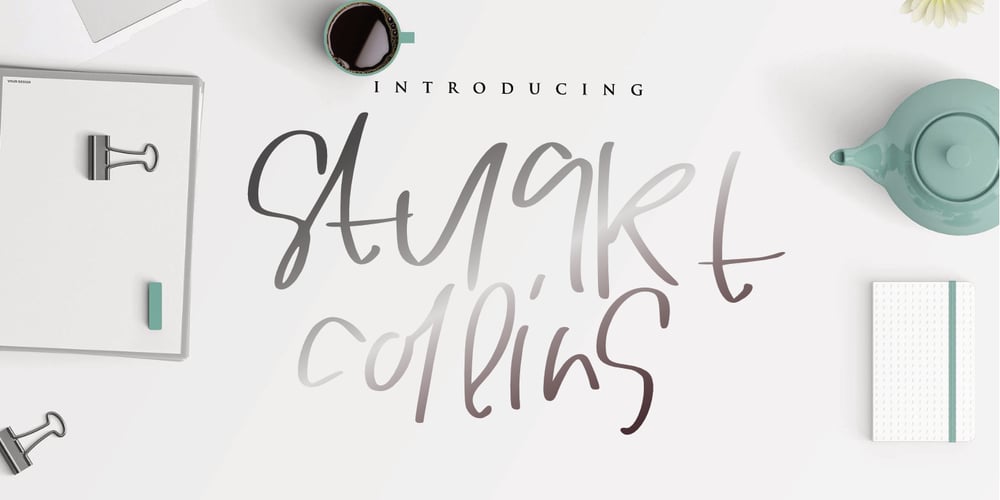
Stuart Collins Font Family was designed by Mariyana and published by Goodigital13. Stuart Collins contains 1 styles and family package options. It looks stunning on wedding invitations, thank you cards, quotes, greeting cards, logos, business cards and every other design which needs a handwritten touch.add an eye-catching appeal to your logo designs, brand imagery, handwritten quotes, product packaging, merchandise & social media posts